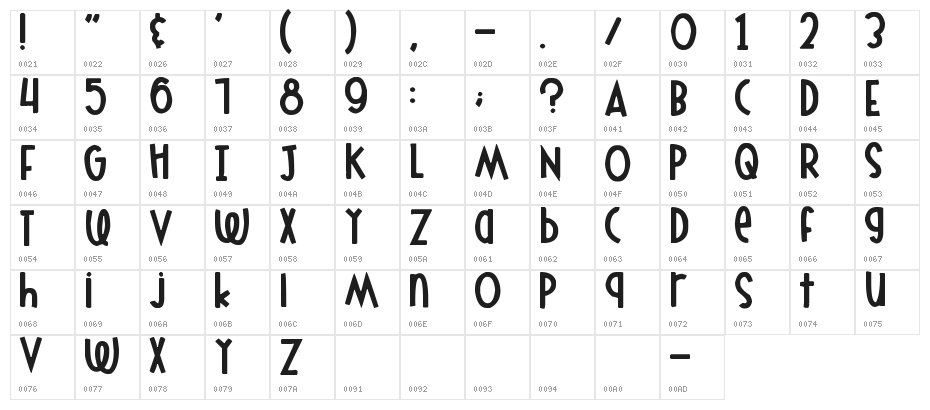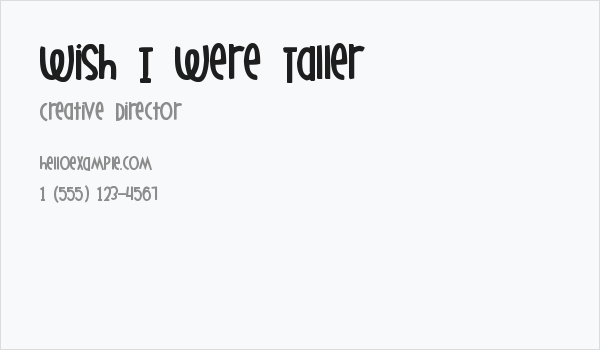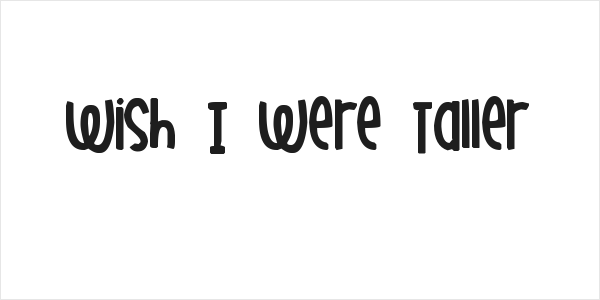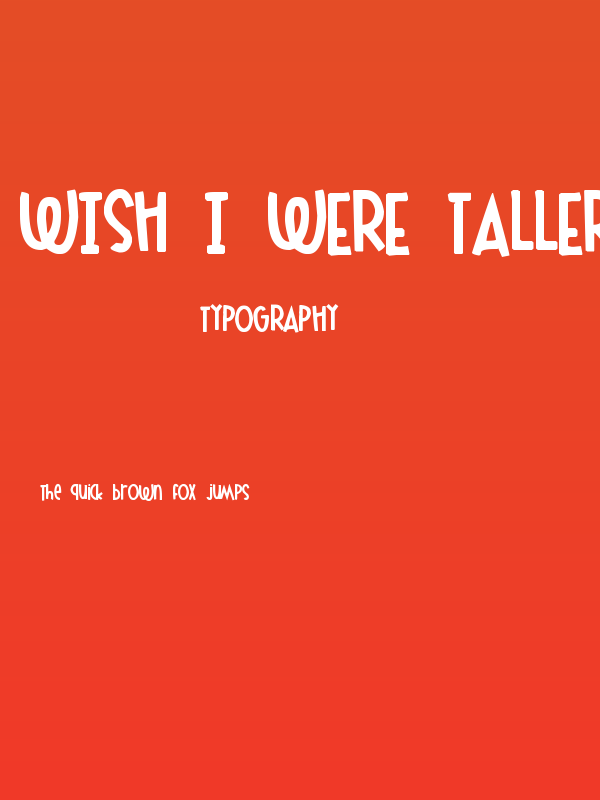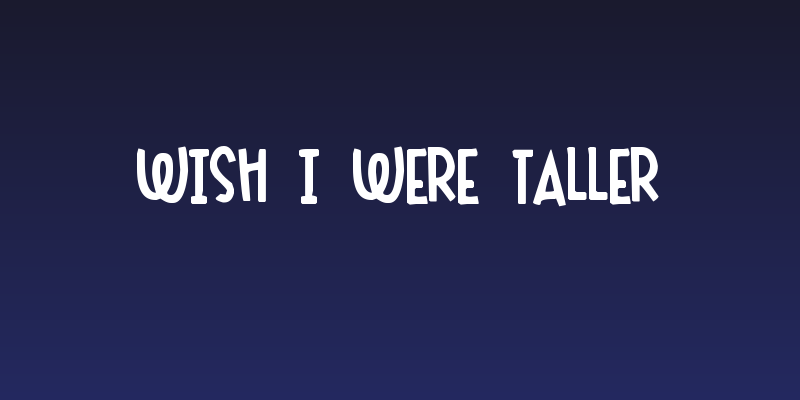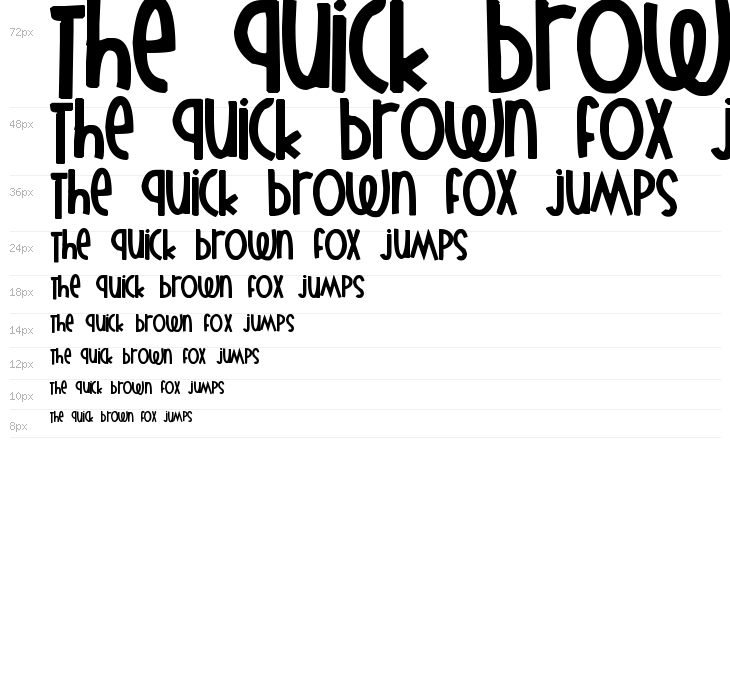
Wish I Were Taller Font
Wish I Were Taller Description
This font features a playful and whimsical style with tall, narrow characters that give it a unique and quirky appearance. The letters are slightly irregular, adding to its charm and making it ideal for creative projects. The uppercase and lowercase letters maintain a consistent height, contributing to a cohesive look. The numbers and special characters follow the same design principles, ensuring uniformity across all elements. The overall design is bold and eye-catching, making it suitable for attention-grabbing headlines or artistic displays. Its informal and friendly vibe makes it perfect for projects that aim to convey a sense of fun and creativity.
| Use Case | Headlines, Logos, Creative Displays |
| Proposed Projects | Ideal for children's books, playful branding, creative posters, and artistic invitations. |